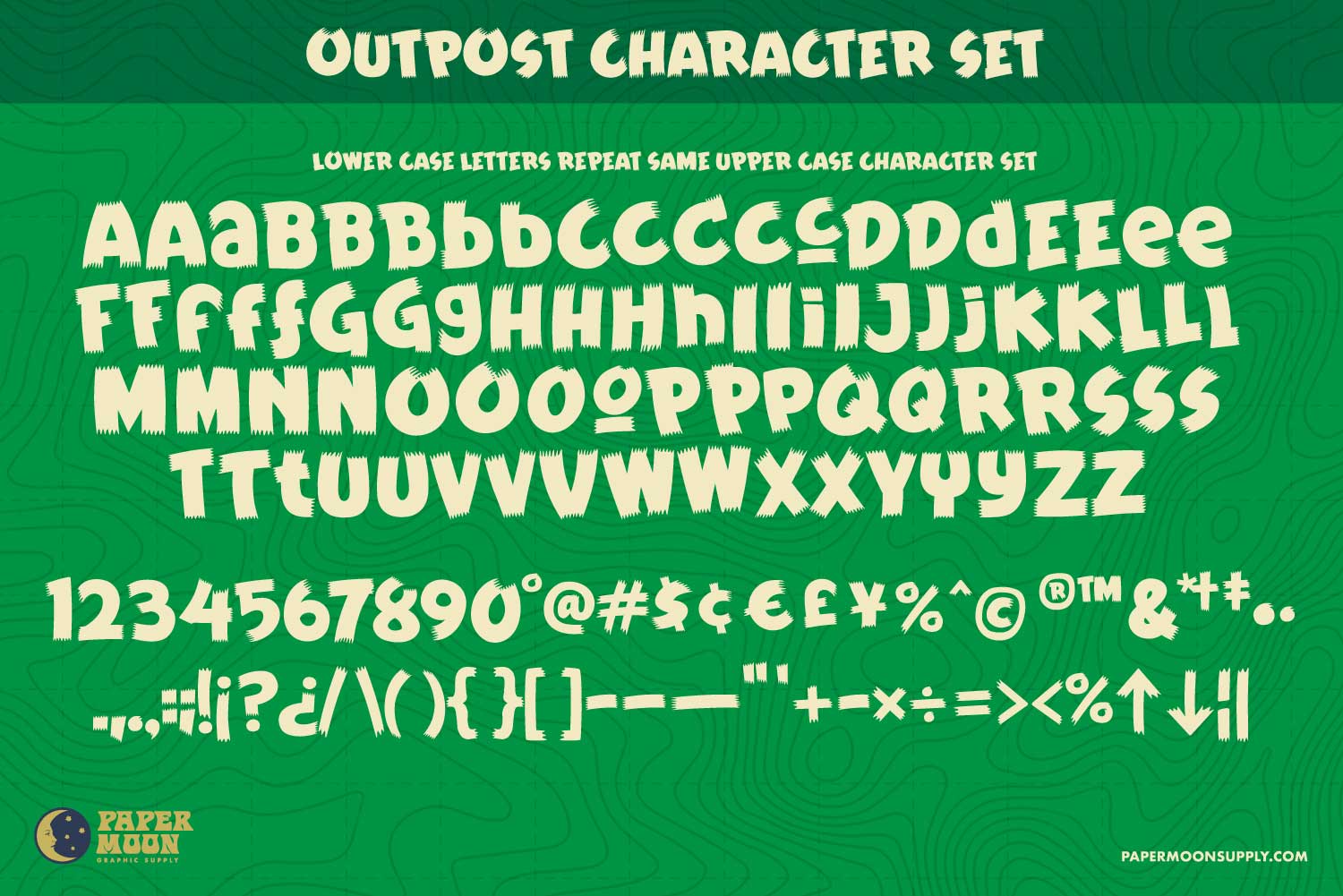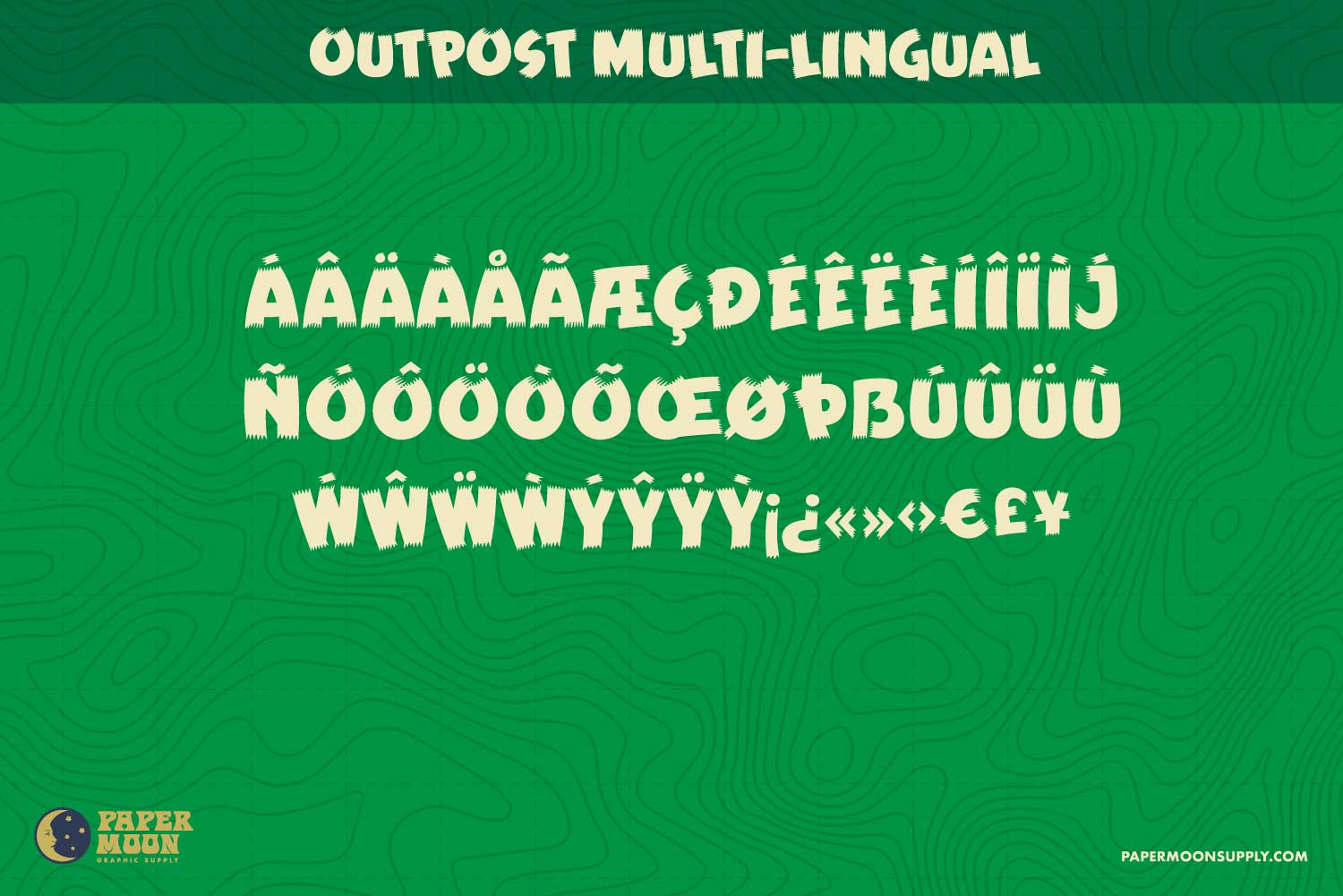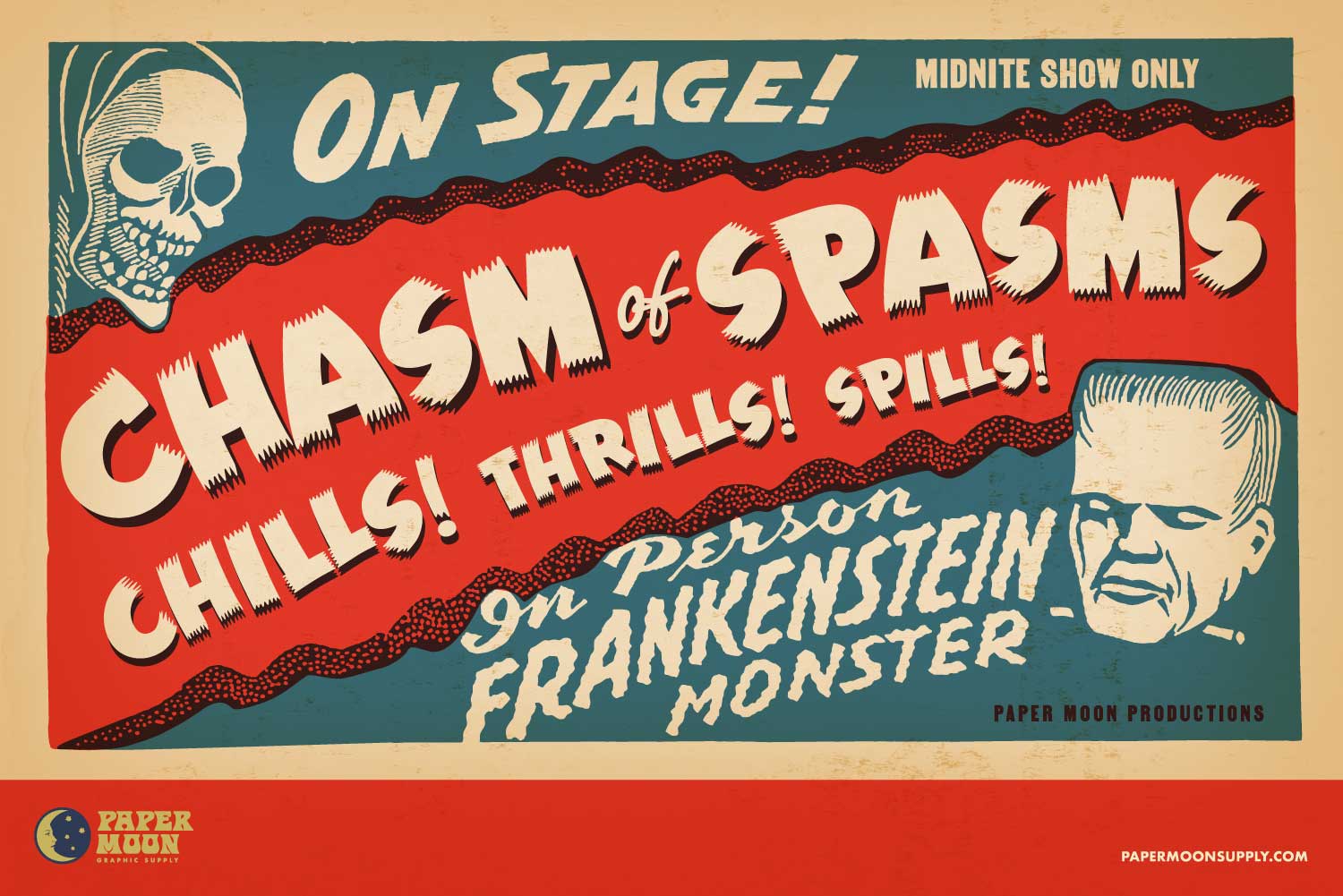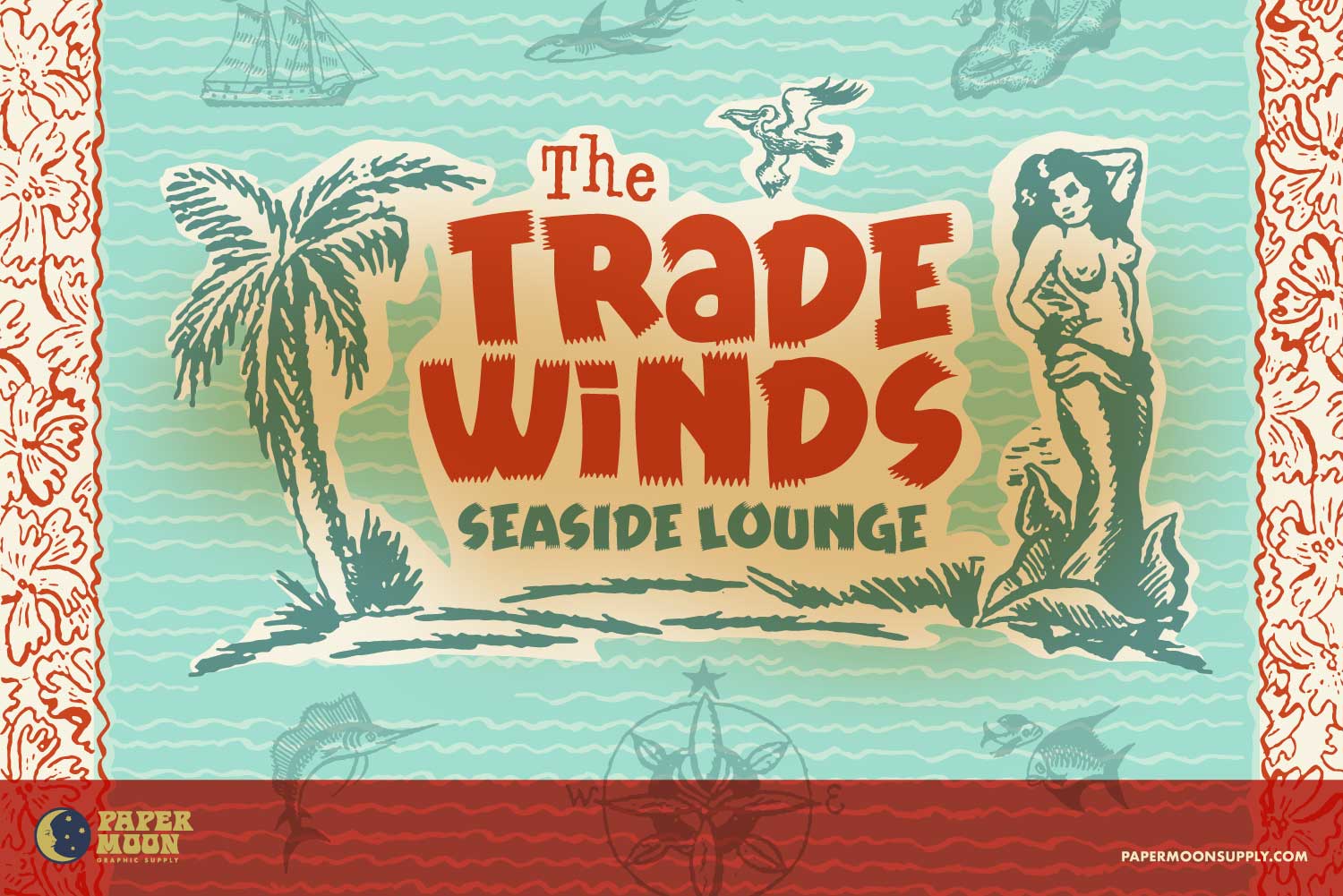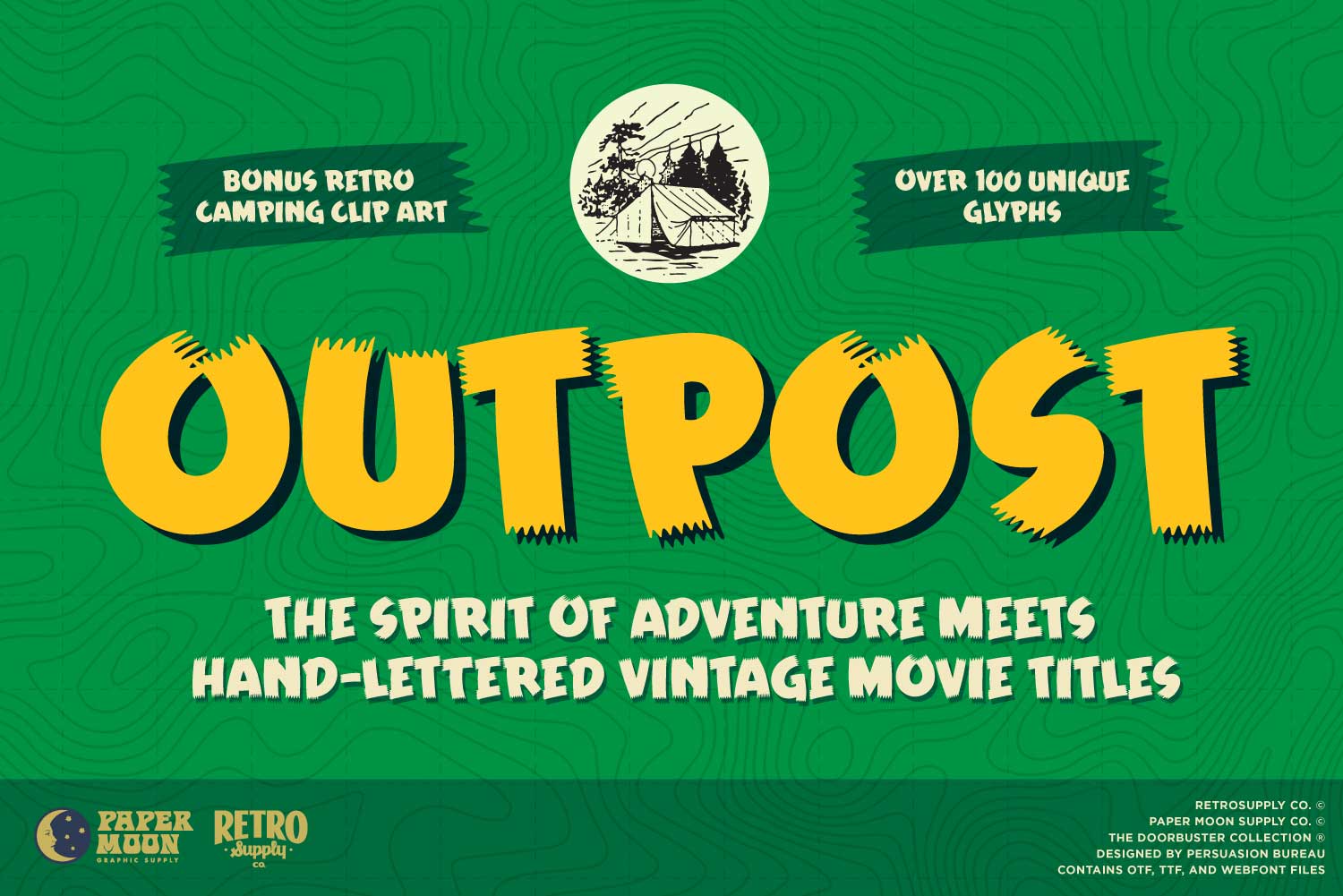
"The Bold Spirit of Adventure in Every Letter."
Step into a world of retro charm and rugged adventure with the Outpost Font. Inspired by vintage movie titles and the hand-crafted typography of mid-century design, this font brings a sense of wonder and daring to any project. Perfect for artists, designers, and creatives looking to add a touch of nostalgia and boldness to their work.
- Hand-Lettered Authenticity: Every character is hand-drawn, offering a rugged, adventurous feel that's impossible to replicate with generic fonts.
- Over 100 Unique Glyphs: Packed with uppercase, lowercase (matching uppercase), numbers, punctuation, and multilingual support.
- Versatile Usage: Ideal for everything from retro movie posters to camping-inspired branding, and even comic book designs.
- Bonus Content Included: Comes with a curated collection of retro camping-themed clip art to further inspire your creative projects.